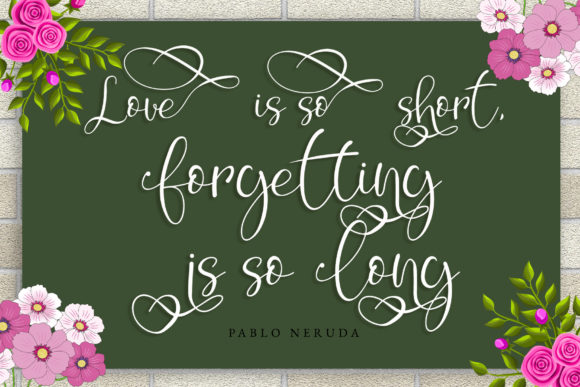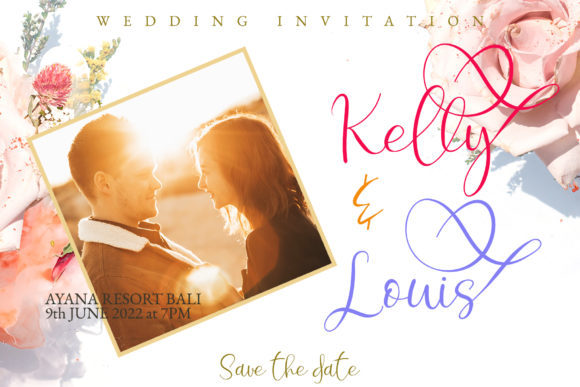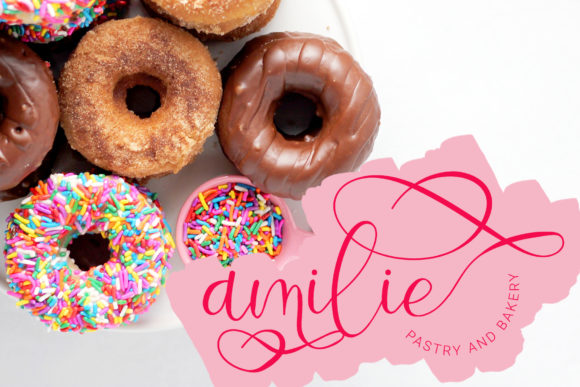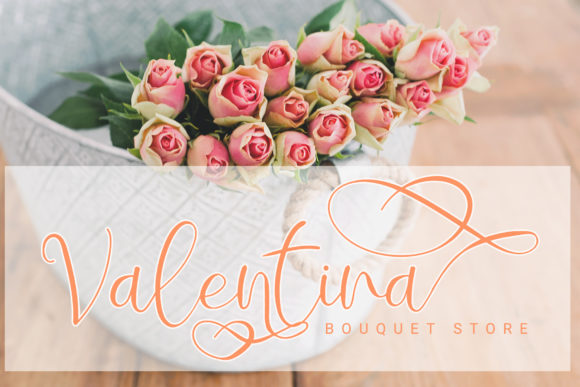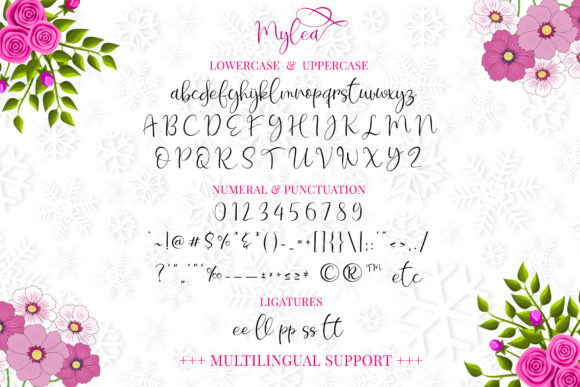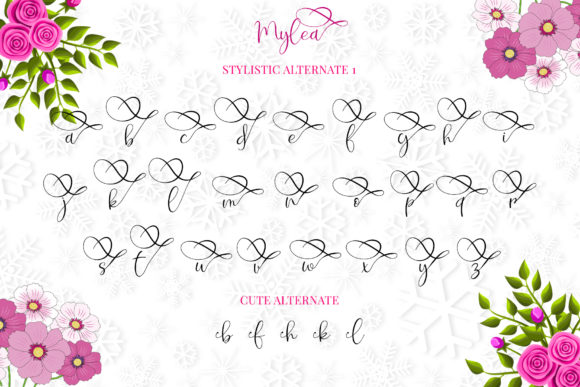
Introduction to Mylea Font
Mylea is beautiful calligraphy script created with full elegance.
It will boost your project design into the next level .
Key Features of Mylea Font
Why Choose Mylea Font?